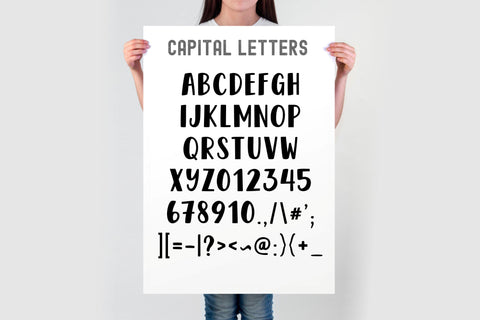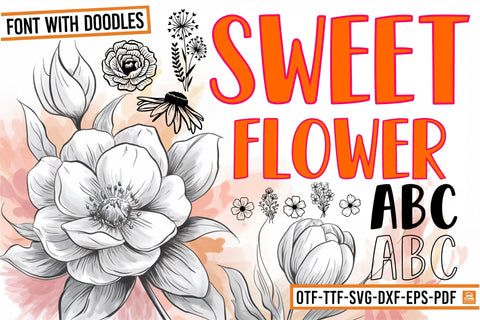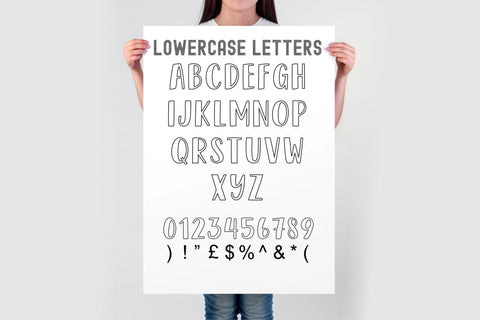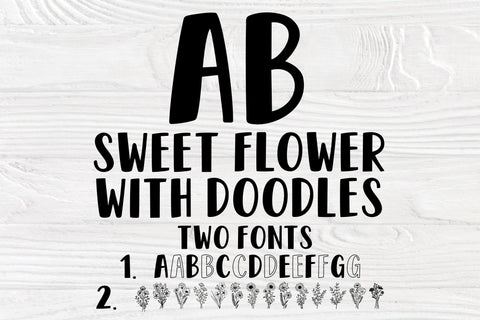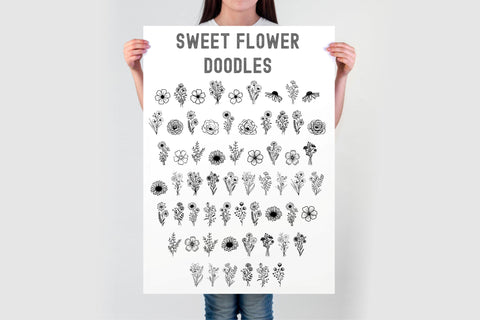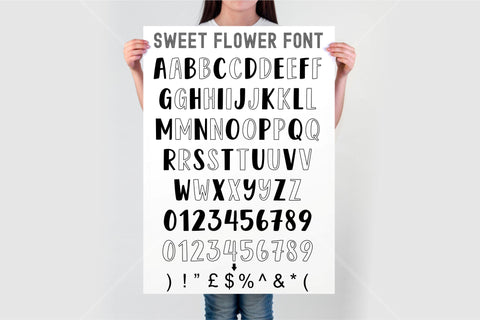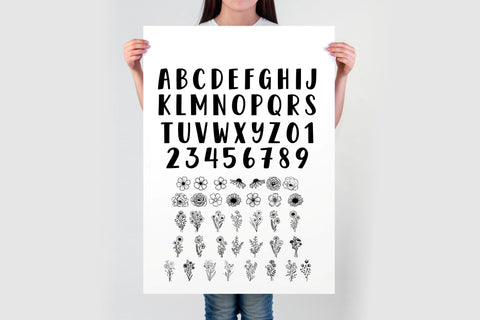
Bring a beautiful floral flair to your designs with the Sweet Flower & Sweet Flower Doodles Font Bundle! This versatile set includes two unique fonts: Sweet Flower, a bold and outline handwritten typeface, and Sweet Flower Doodles, featuring hand-drawn floral doodles perfect for creating personalized designs. Whether you’re working on t-shirts, mugs, invitations, or home decor, these fonts offer endless possibilities for adding a creative and playful touch to your projects.
Sweet Flower combines bold capital letters with outline lowercase letters for a fun, whimsical look that’s great for custom apparel and gifts. Sweet Flower Doodles adds a touch of nature with hand-drawn floral doodles that are perfect for enhancing your designs.
Bold capital letters and outline lowercase letters in the Sweet Flower font for creative designs.
Hand-drawn floral doodles in the Sweet Flower Doodles font for a playful, artistic touch.